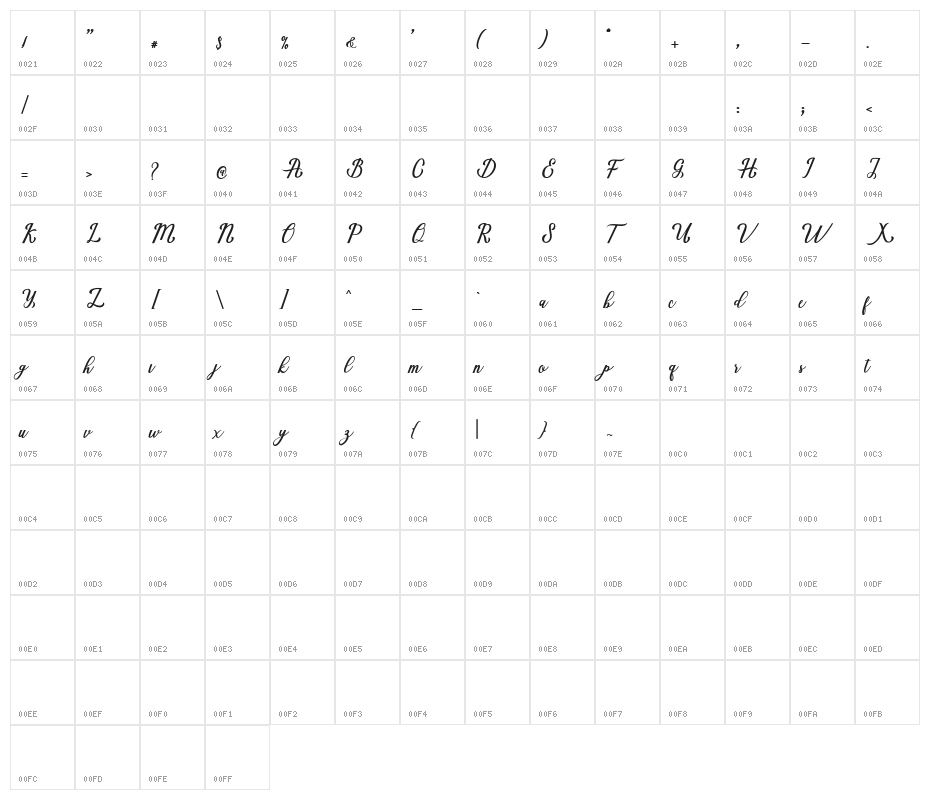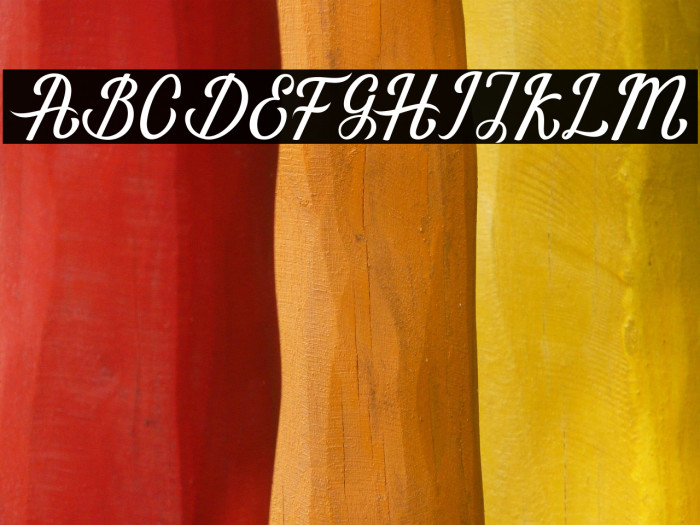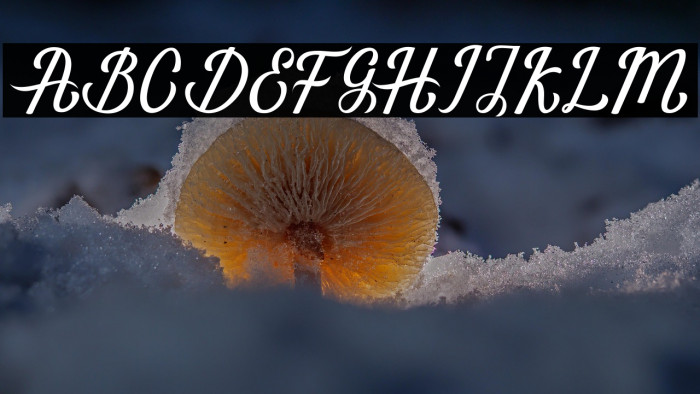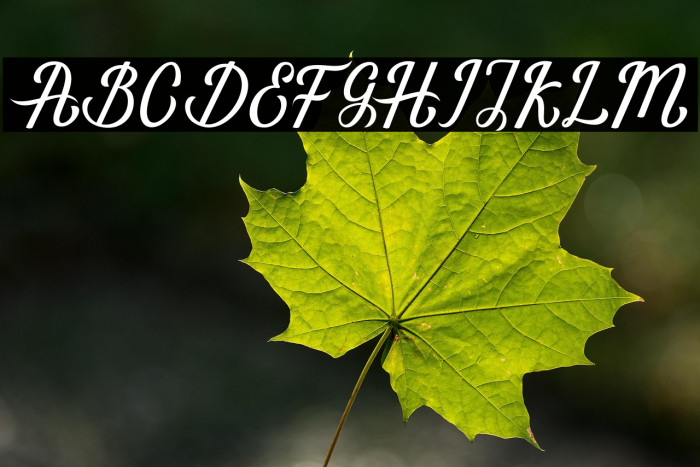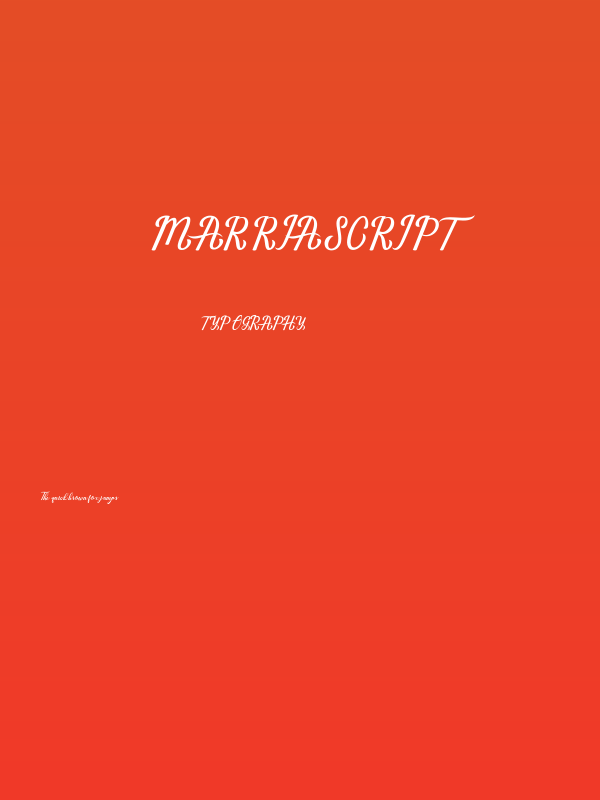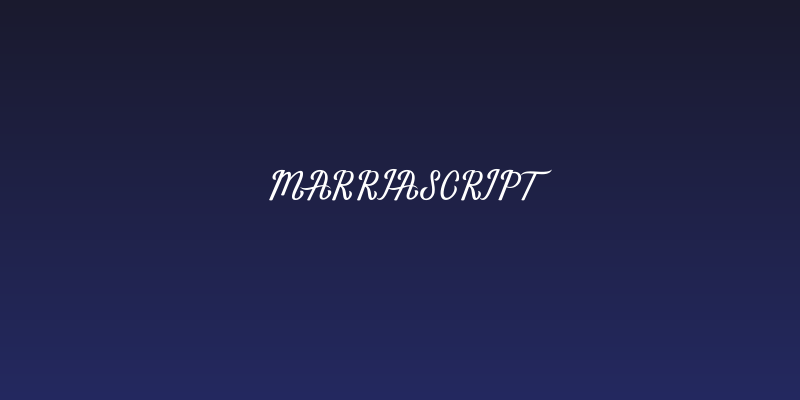
MarriaScript Font
MarriaScript Description
This elegant script font features flowing, cursive letters with a classic and sophisticated appearance. The uppercase letters are ornate, with sweeping curves and flourishes that add a touch of grandeur. The lowercase letters maintain a consistent style, with smooth connections between characters, enhancing readability while retaining an artistic flair. The numerals and special characters are designed to complement the overall script style, ensuring a cohesive look across all text elements. This font is perfect for projects that require a touch of elegance and formality, such as wedding invitations, certificates, and upscale branding materials.
| Overall Style | Classic |
| Use Case | Headlines, Invitations, Branding |
| Proposed Projects | Ideal for wedding invitations, formal event programs, elegant branding, and certificates. |